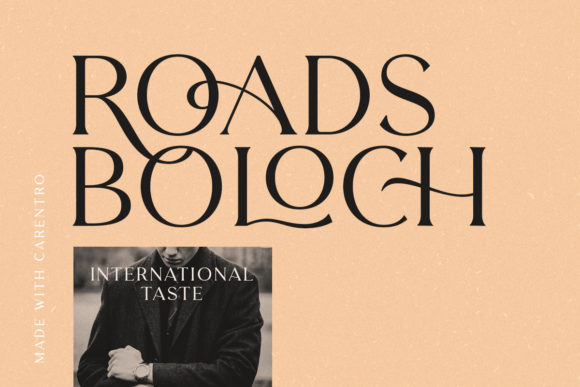
Carentro Font
Carentro is an elegant serif font, that fits a wide variety of design ideas. Fall in love with its incredibly versatile style and use it to create spectacular designs!